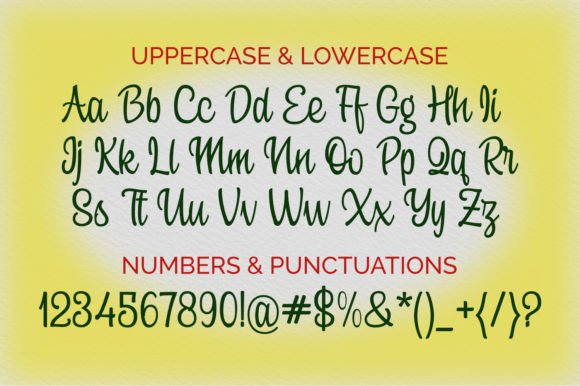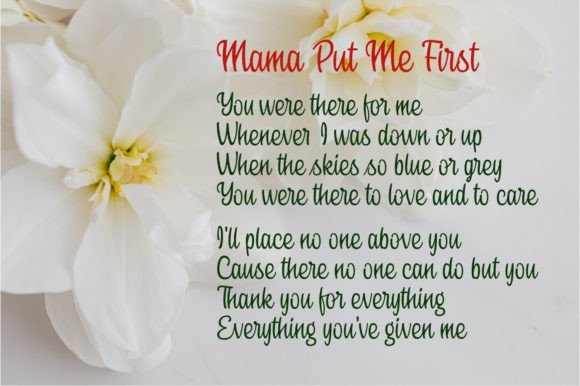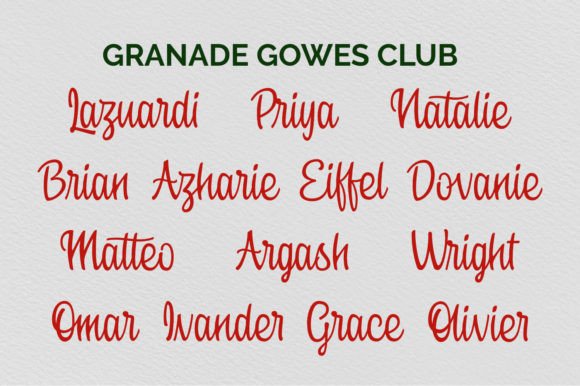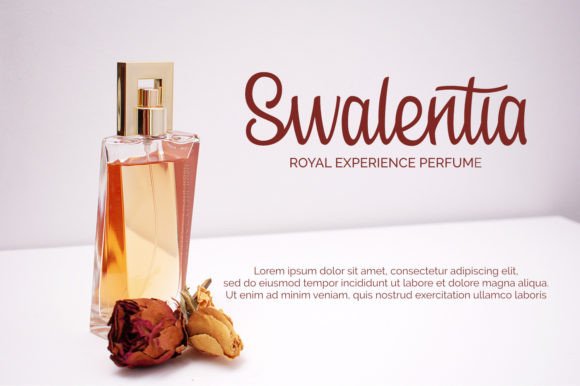
The Greentrick Font: Elevating Your Designs with Elegance
An Honest Review of Greentrick Font
- ✨ Elegant and steady touch: Greentrick Font boasts a beautiful, flowing script that adds a touch of class to any project.
- ✅ PUA encoded: With PUA encoding, you can access all the glyphs, ligatures, and alternates, giving you endless creative possibilities.
- 💫 Modern and stylish: This font is perfect for designers, crafters, and creative hobbyists looking to add a modern twist to their work.
While Greentrick Font is an excellent choice, there are a few things to keep in mind:
- 🤔 Legibility at small sizes: As with many script fonts, Greentrick can be a bit tricky to read at very small sizes. Make sure to test it in your design before finalizing.
- ⚠️ Limited use cases: While Greentrick is versatile, it’s not suitable for every project. For example, it might not be the best choice for body text or very formal documents.
The Story Behind Greentrick Font
Greentrick Font was designed with the intention of creating a modern, elegant script font that would elevate any design. Inspired by the flowing lines of handwritten calligraphy, Greentrick’s creator aimed to craft a font that would bring a touch of sophistication to any project. Whether you’re a designer, crafter, or creative hobbyist, Greentrick Font is sure to become a favorite in your collection.
| Font Name | Greentrick Font |
| Author | Constructype Studio |
| Is Greentrick Font suitable for body text? | While Greentrick Font is beautiful, it’s not ideal for body text. It’s best used for headings, titles, or short paragraphs. |